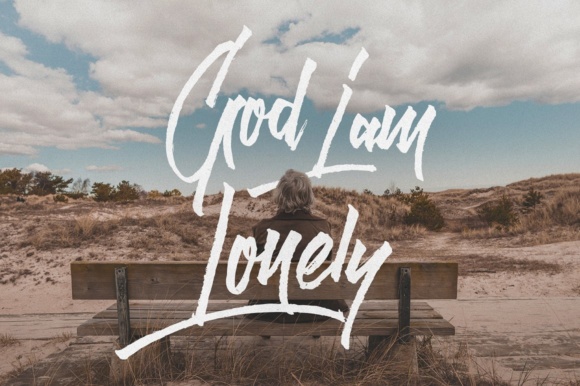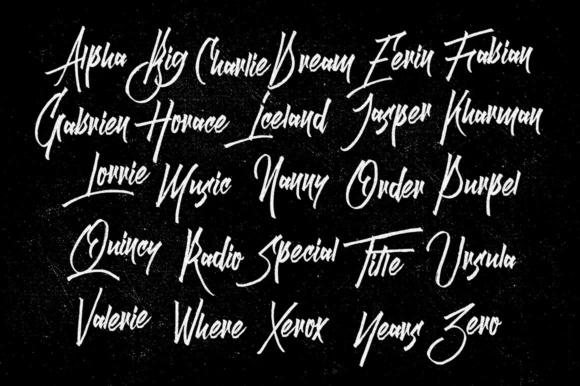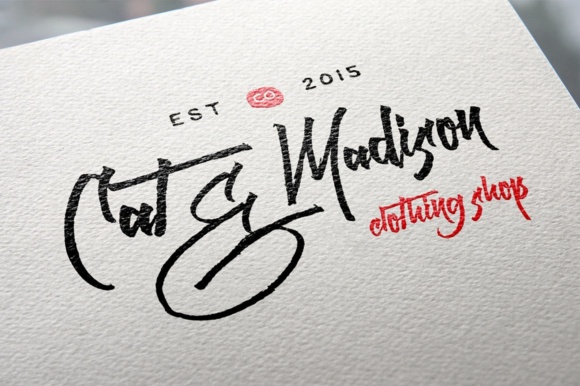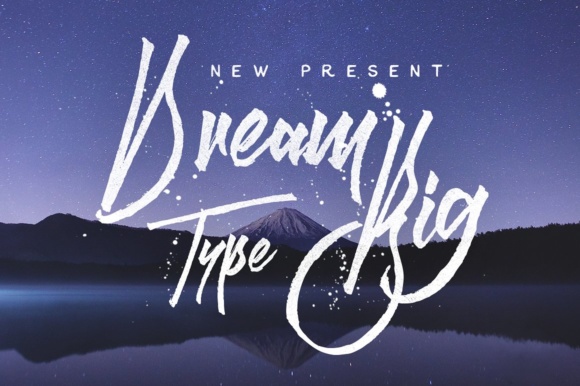
Dream Big Font: Unleash Your Creativity with Hand-Painted Typography
Are you a designer, crafter, or DIY enthusiast looking for a unique and creative way to add a personal touch to your projects? Look no further than the Dream Big Font, a hand-painted typeface designed to help you create stunning hand-lettered designs. In this article, we’ll dive into the world of Dream Big Font, exploring its features, benefits, and uses, as well as provide tips and inspiration for incorporating it into your creative projects.
What is Dream Big Font?
The Dream Big Font is a hand-painted typeface, carefully crafted to bring a touch of personality and whimsy to your designs. Unlike traditional fonts, which can often feel generic and uniform, Dream Big Font is a unique and expressive font that mimics the imperfections and charm of hand-lettering. With its bold, playful, and artistic feel, it’s perfect for creating eye-catching titles, headings, and quotes that demand attention.
Features of Dream Big Font
- Hand-painted design: Each letter has been carefully hand-painted to create a unique and authentic look.
- Variety of characters: The font includes a range of characters, including uppercase and lowercase letters, numbers, and punctuation marks.
- Scalable: The font is scalable, allowing you to use it for a variety of projects, from small crafts to large-scale designs.
Benefits of Using Dream Big Font
So, why choose Dream Big Font for your next project? Here are just a few benefits of using this amazing hand-painted typeface:
- Adds personality: Dream Big Font brings a touch of personality and whimsy to your designs, setting them apart from more generic fonts.
- Creates visual interest: The unique, hand-painted design of Dream Big Font creates visual interest and grabs attention.
- Perfect for branding: Use Dream Big Font to create a consistent brand identity that reflects your personality and style.
- Versatile: Dream Big Font can be used for a wide range of projects, from paper crafting to digital design.
Uses for Dream Big Font
Dream Big Font is a versatile typeface that can be used for a variety of creative projects, including:
- Paper crafting: Add a personal touch to your cards, scrapbook pages, and other paper crafts with Dream Big Font.
- Digital design: Use Dream Big Font to create eye-catching social media graphics, blog headers, and more.
- Branding: Establish a consistent brand identity with Dream Big Font, perfect for small businesses and entrepreneurs.
- Sign making: Create stunning hand-lettered signs for your home, office, or business with Dream Big Font.
Tips for Using Dream Big Font
Here are a few tips for getting the most out of Dream Big Font:
- Experiment with colors: Try pairing Dream Big Font with different colors and textures to add depth and interest to your designs.
- Play with size: Experiment with different font sizes to create visual hierarchy and emphasis in your designs.
- Add embellishments: Consider adding embellishments, such as glitter or doodles, to give your designs an extra touch of personality.
Inspiration for Your Next Project
Still looking for inspiration for your next project? Here are a few ideas to get you started:
- Create a motivational quote: Use Dream Big Font to create a stunning motivational quote to display in your home or office.
- Design a custom sign: Create a custom sign for your business or home with Dream Big Font.
- Make a handmade card: Add a personal touch to your next handmade card with Dream Big Font.